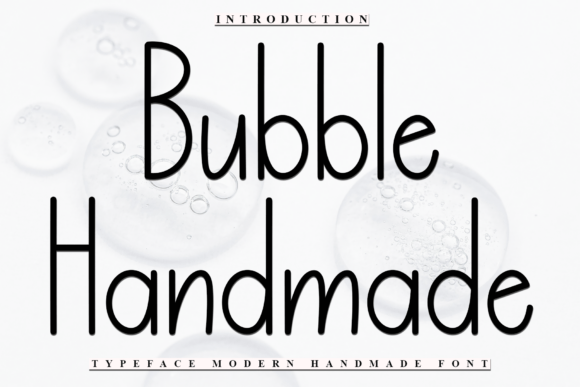
The Designer’s Delight: Bubble Handmade Font
Have you ever been in the middle of a design project, and suddenly, you’re stuck on finding the perfect font? I recall a recent experience where I was working on a whimsical craft project, and my client requested a font that was both playful and elegant. After hours of searching, I stumbled upon the Bubble Handmade font, and it was love at first sight! ✨ In this article, I’ll share my journey with this beautiful font, its features, and how you can make the most of it in your designs.
- ✨ Unique and eye-catching design: The Bubble Handmade font boasts a soft, distinctive touch that sets it apart from other fonts.
- ✅ Versatile and meaningful: Its special character makes it perfect for a wide range of design projects, from crafts to creative works.
- 🌈 Variety of characters: This font offers a range of characters, ensuring you have plenty of options for your designs.
While I adore the Bubble Handmade font, there are a few minor considerations to keep in mind:
- 🤔 Limited use in formal designs: Due to its playful nature, this font might not be the best fit for formal or professional designs.
- ⚠️ Dependence on OpenType features: Some users might encounter issues if they’re not familiar with OpenType features or glyphs.
While I couldn’t find concrete information on the designer behind Bubble Handmade, I imagine a creative individual who wanted to craft a font that would bring joy and whimsy to designs. Perhaps they drew inspiration from childhood memories of blowing bubbles, watching them float gently through the air, and capturing their ephemeral beauty. This font’s unique strokes and characters evoke a sense of playfulness, making it perfect for designers who want to add a touch of magic to their work.
Q: What type of designs is Bubble Handmade best suited for?
A: Bubble Handmade is ideal for creative projects, crafts, and designs that require a playful, yet elegant touch.